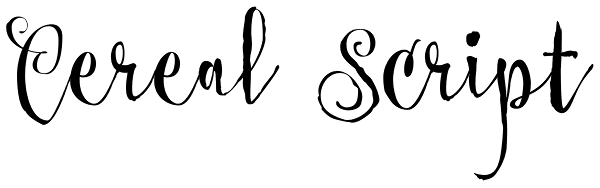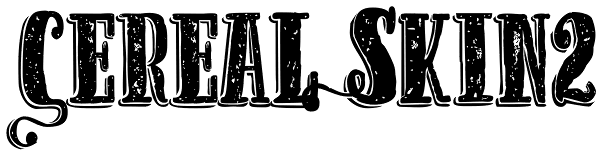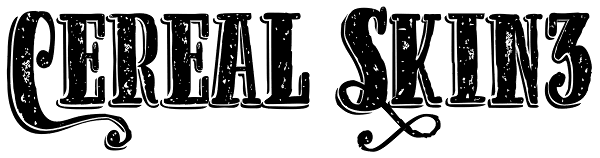
Cereal
Cereal is a font family designed by Carlos Fabian Camargo. Its 8 fonts work in groups or independent. All are designed for composition of words and phrases that need to communicate warm and craft climate. Due to its high imaginative content it is...